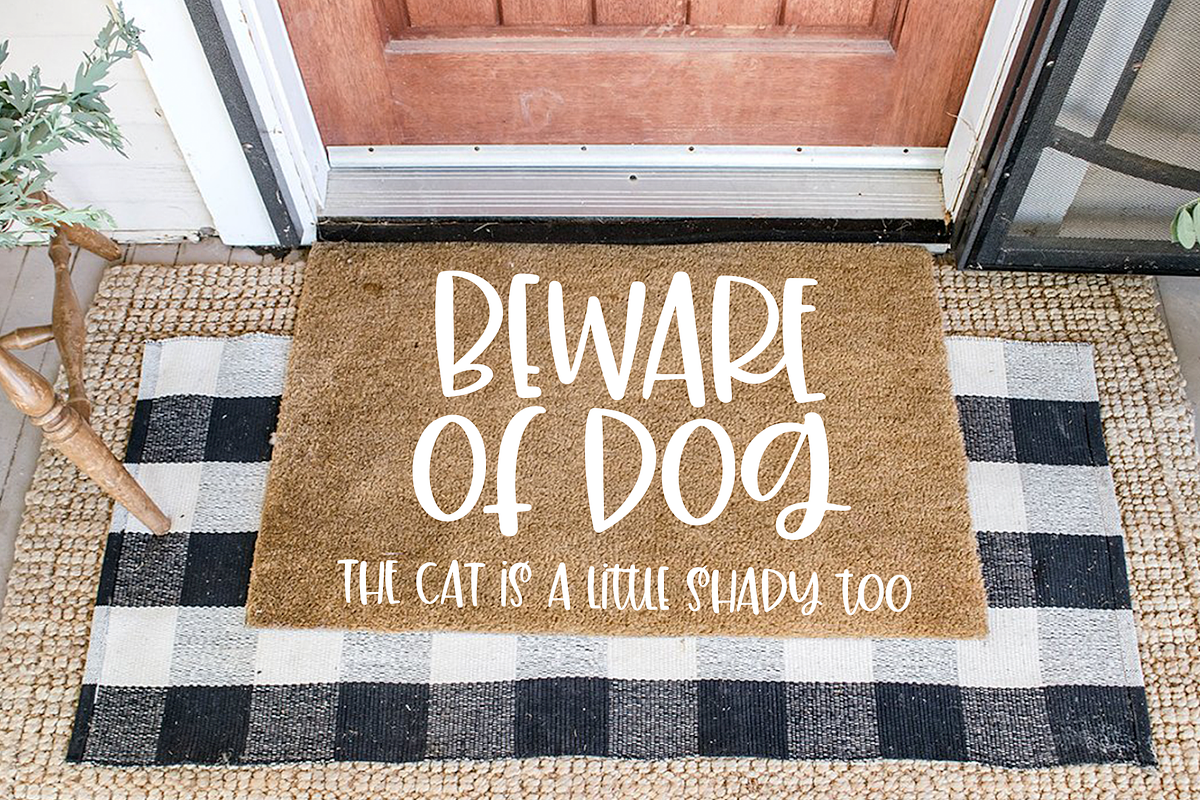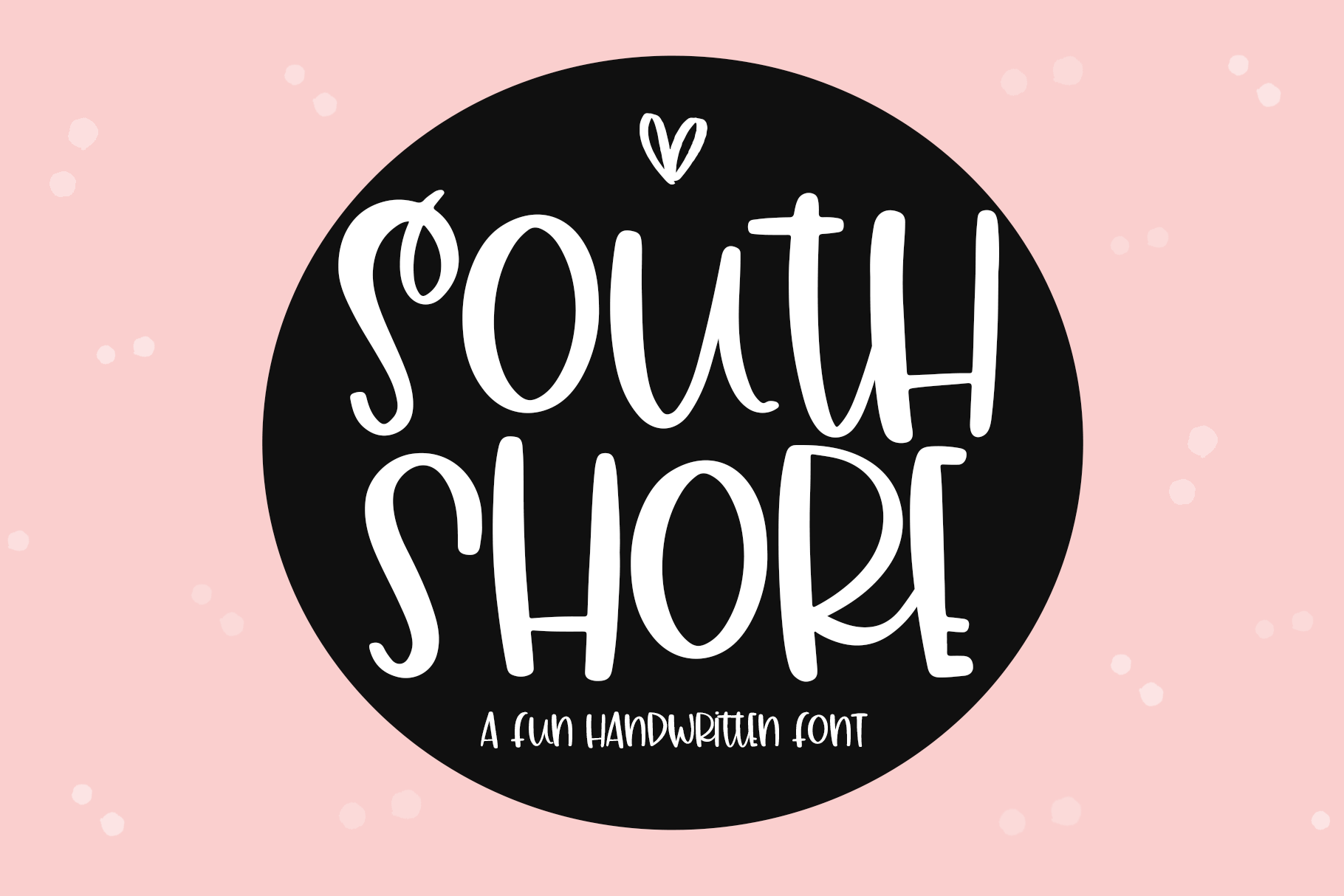
South Shore | Fun Handwritten Font
South Shore is a mix/match handwritten font!
This font is perfect for quotes, shirt designs, websites, branding, children's designs, blogs, logos, invitations, farmhouse decor, svg designs and more!
Most accent characters included.